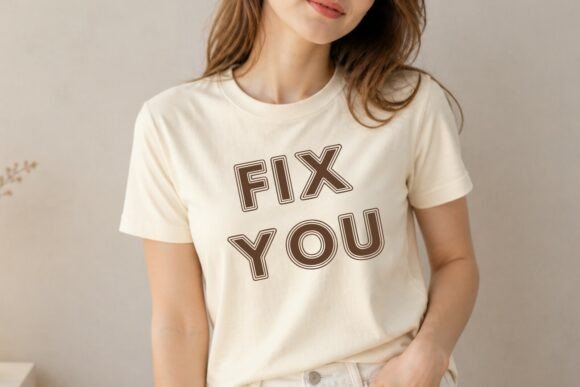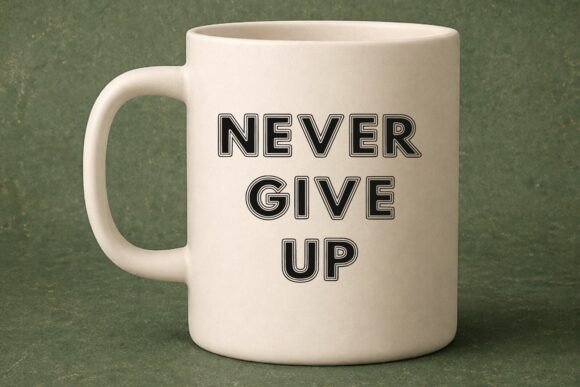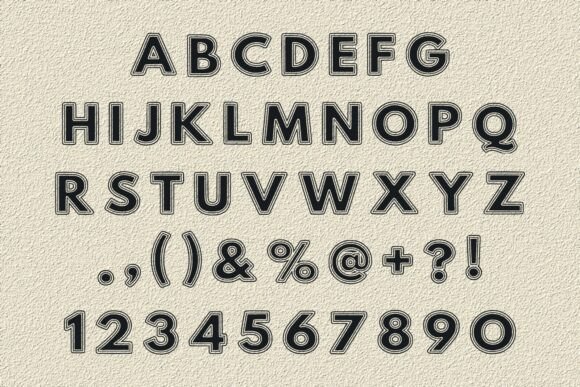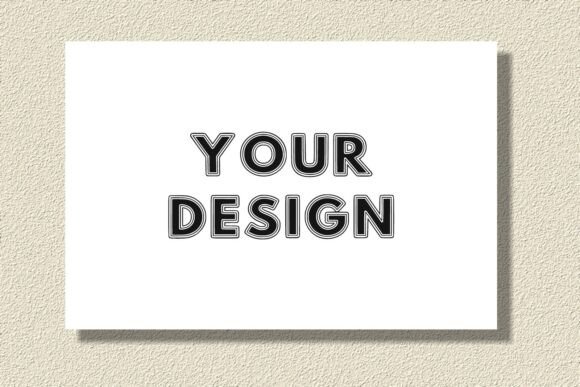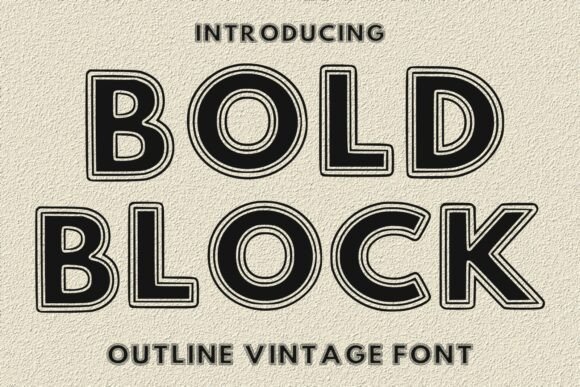
Introducing Bold Block Font: The Perfect Blend of Retro Elegance and Modern Style
In the world of typography, fonts play a crucial role in conveying messages, evoking emotions, and creating lasting impressions. For designers and crafters looking for a typeface that combines the best of both worlds – retro charm and modern sophistication – Bold Block Font is an excellent choice. This modern vintage outline font is designed to turn heads with its unique blend of layered outline details and bold display style, making it perfect for a wide range of creative projects.
The Essence of Bold Block Font
Bold Block Font is a carefully crafted typeface that brings together the elegance of retro design with the strength of geometric letterforms. Its stylish vintage personality is instantly recognizable, thanks to the distinctive outline effect that gives every character a sense of depth and dimensionality. Whether you’re working on posters, logos, branding, apparel, packaging, signage, social media graphics, or creative retro projects, this font is sure to make your headlines stand out with a timeless classic vibe.
Key Features of Bold Block Font
- Modern Vintage Outline Design: Bold Block Font boasts a unique outline design that pays homage to classic retro typography while incorporating modern geometric elements for a fresh look.
- Bold Display Style: The font’s bold display style ensures that your text grabs attention without compromising on elegance or sophistication.
- Layered Outline Details: The layered outline details add a level of intricacy and visual interest, making the font perfect for projects where you want to make a statement.
- Clean yet Nostalgic Aesthetic: The combination of clean lines and nostalgic outline effects creates a visually appealing aesthetic that’s both retro and modern.
- Versatility: From posters and logos to apparel and social media graphics, Bold Block Font’s versatility makes it an excellent addition to any designer’s toolkit.
Uses of Bold Block Font
The possibilities are endless with Bold Block Font. Here are some of the many ways you can use this versatile typeface:
- Posters: Create eye-catching posters for events, promotions, or announcements that demand attention.
- Logos and Branding: Establish a strong brand identity with a logo that combines modern style with retro charm.
- Apparel: Design t-shirts, hoodies, and other apparel that stands out with a unique and stylish font.
- Packaging: Elevate your product packaging with a font that adds a touch of elegance and sophistication.
- Signage: Create signage that grabs attention and communicates your message effectively, whether for indoor or outdoor use.
- Social Media Graphics: Enhance your social media presence with graphics that incorporate Bold Block Font for a distinctive look.
- Creative Retro Projects: Perfect for any project that requires a retro vibe with a modern twist, such as flyers, brochures, and more.
Why Choose Bold Block Font?
In a sea of fonts, Bold Block Font stands out for several reasons:
- Unique Style: Offers a distinctive blend of retro elegance and modern geometric style.
- High Versatility: Suitable for a wide range of projects, from digital graphics to print materials.
- Easy to Read: Despite its bold and outlined design, the font remains clear and easy to read.
- Timeless Appeal: The classic vibe of Bold Block Font ensures that your designs will remain stylish for years to come.
Bold Block Font is more than just a typeface – it’s a design statement. With its perfect blend of retro charm and modern sophistication, it’s an excellent choice for designers and crafters looking to add a unique touch to their projects. Whether you’re aiming for a vintage look or a bold statement, Bold Block Font delivers a clean yet nostalgic aesthetic that’s sure to turn heads. Add Bold Block Font to your collection today and discover the endless possibilities it offers for creating stunning designs.